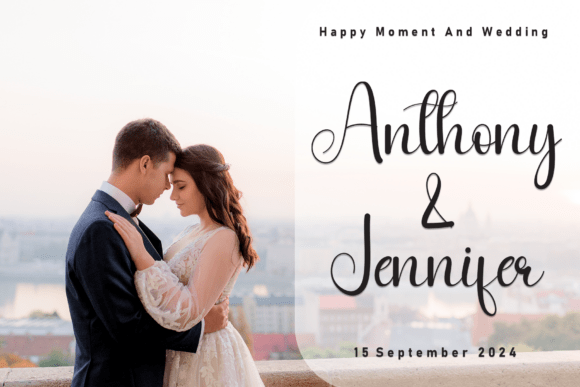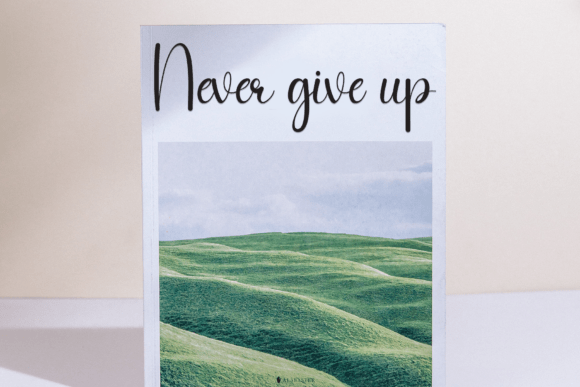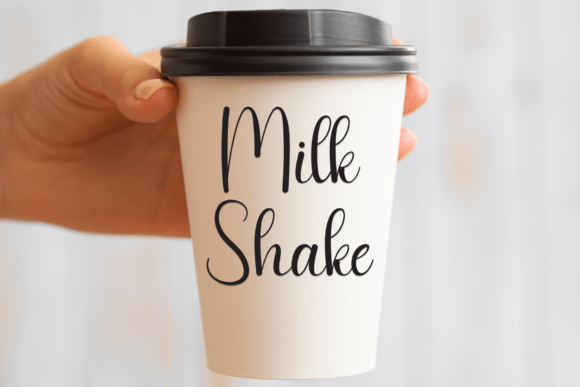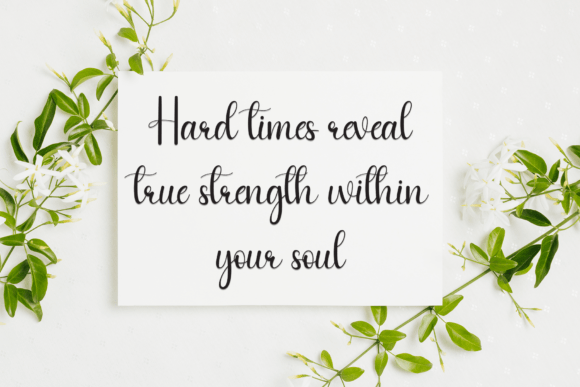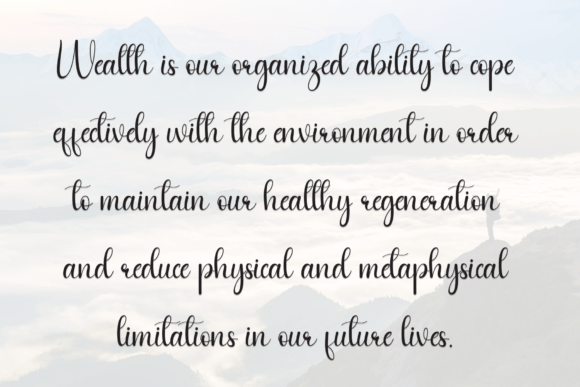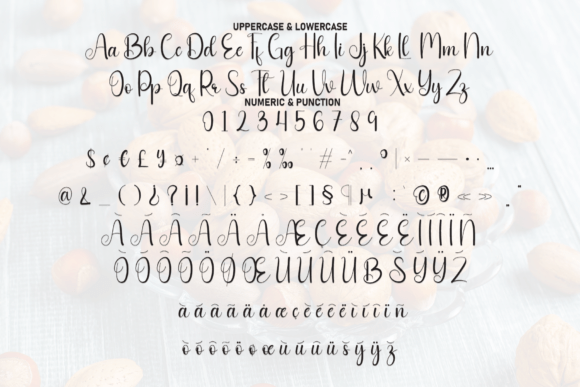
Introducing Almonde Font: The Epitome of Elegance and Playfulness
In the realm of typography, few fonts manage to strike a balance between elegance and playfulness as effortlessly as Almonde. This stylish handwritten script font has been turning heads with its unique blend of sophistication and charm, making it a go-to choice for designers and crafters looking to add a personal touch to their projects. In this article, we’ll delve into the world of Almonde Font, exploring its features, applications, and the magic it brings to invitations, branding, social media, and more.
The Birth of Almonde: A Labor of Love
Almonde Font is the brainchild of talented typographers who sought to create a font that embodies the essence of handwritten scripts with a modern twist. The result is a font that exudes warmth, sophistication, and creativity, perfect for those seeking to infuse their designs with a touch of personality. With its flowing curves and natural rhythm, Almonde is more than just a font – it’s an experience.
Key Features of Almonde Font
- Elegant Handwritten Script: Almonde boasts a beautiful, flowing script that adds a touch of elegance to any project.
- Playful and Charming: Despite its sophistication, Almonde has a playful side, making it perfect for designs that require a bit of whimsy.
- Natural Rhythm: The font’s natural rhythm and flowing curves create a sense of movement, drawing the reader’s eye through the text.
- Versatile: Almonde is incredibly versatile, suitable for a wide range of applications, from formal invitations to social media graphics.
Applications of Almonde Font
Almonde’s versatility makes it an excellent choice for various design projects. Here are some of the most popular applications:
- Invitations: Whether it’s a wedding invitation, birthday party, or baby shower, Almonde adds a touch of elegance and sophistication.
- Branding: Use Almonde to create a unique and memorable brand identity that stands out from the crowd.
- Social Media: Add a personal touch to your social media graphics, posts, and stories with Almonde’s playful and charming script.
- Stationery: Create beautiful stationery, including letterheads, notecards, and journals, with Almonde’s elegant script.
Why Designers and Crafters Love Almonde Font
So, what makes Almonde a favorite among designers and crafters? Here are a few reasons:
- Unique and Memorable: Almonde’s distinctive script makes it easy to create designs that stand out and are remembered.
- Easy to Read: Despite its elegant and cursive nature, Almonde is surprisingly easy to read, making it perfect for body text and headlines.
- Customizable: With its extensive character set and alternate glyphs, Almonde offers endless possibilities for customization.
Tips for Using Almonde Font
To get the most out of Almonde, here are a few tips:
- Pair with Sans-Serif Fonts: Combine Almonde with sans-serif fonts for a beautiful contrast that adds visual interest.
- Experiment with Colors: Almonde looks stunning in a variety of colors, so don’t be afraid to experiment and find the perfect hue for your design.
- Play with Alternate Glyphs: Take advantage of Almonde’s alternate glyphs to add a touch of uniqueness to your designs.
In conclusion, Almonde Font is a stylish and versatile handwritten script font that brings elegance, playfulness, and sophistication to any project. With its flowing curves, natural rhythm, and charming script, it’s no wonder designers and crafters are falling in love with Almonde. Whether you’re creating invitations, branding materials, or social media graphics, Almonde is sure to add a personal touch that sets your designs apart.